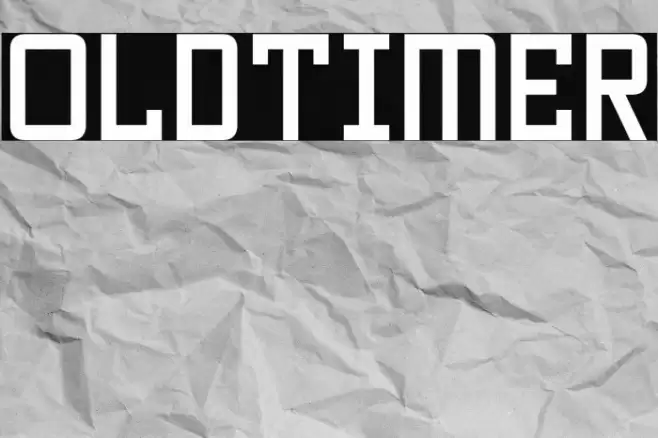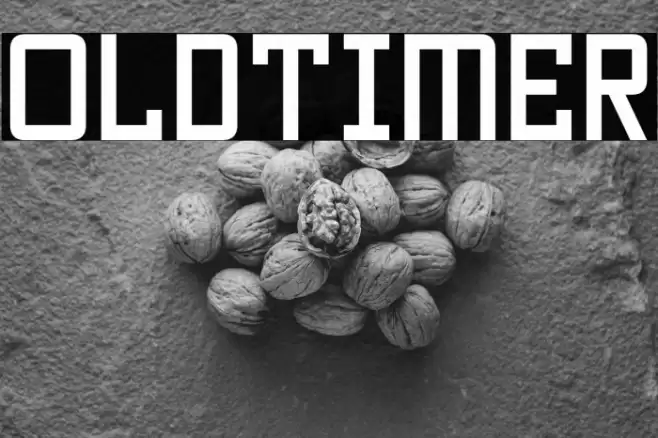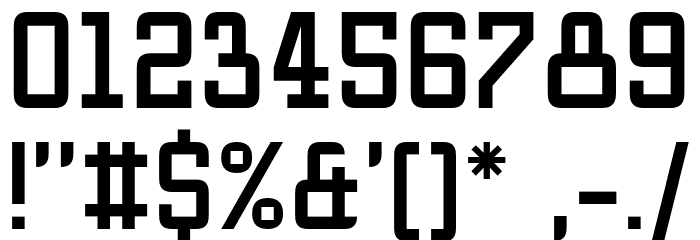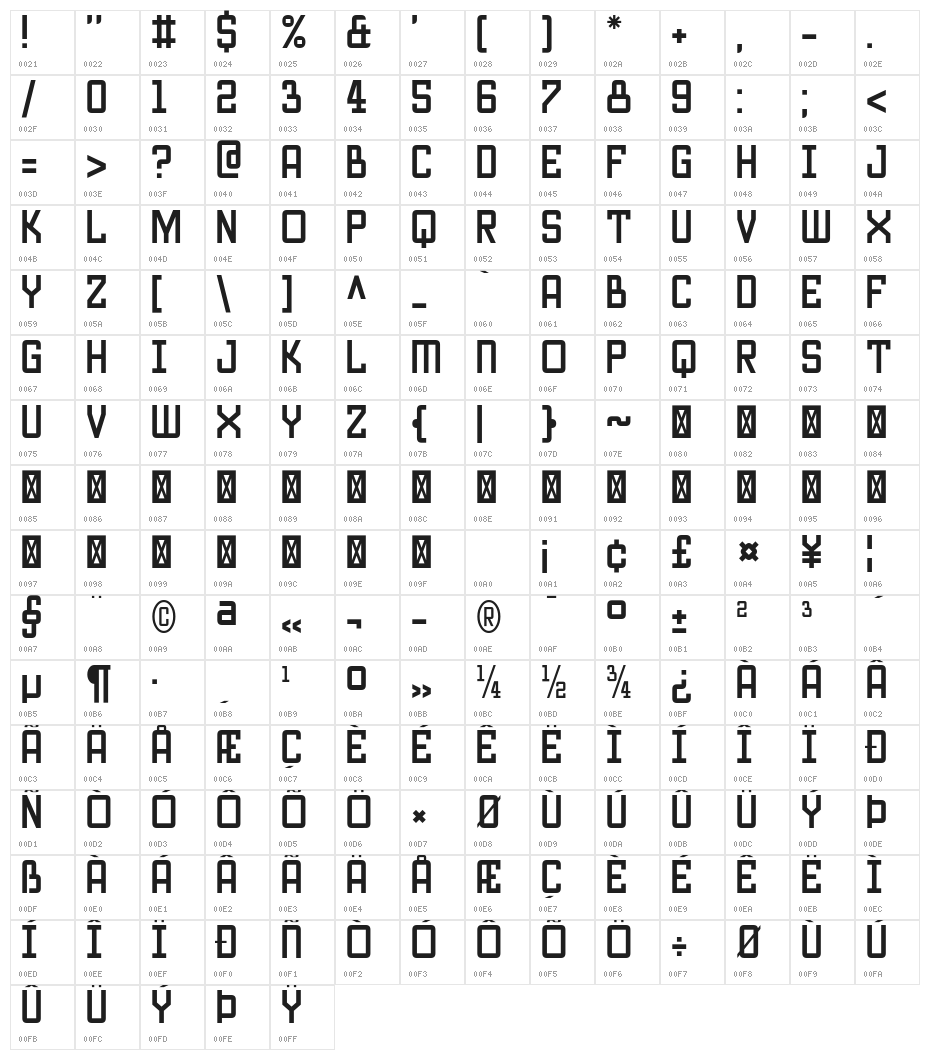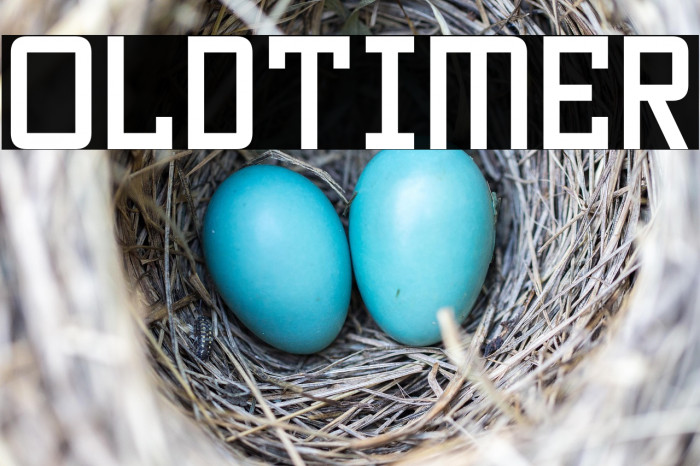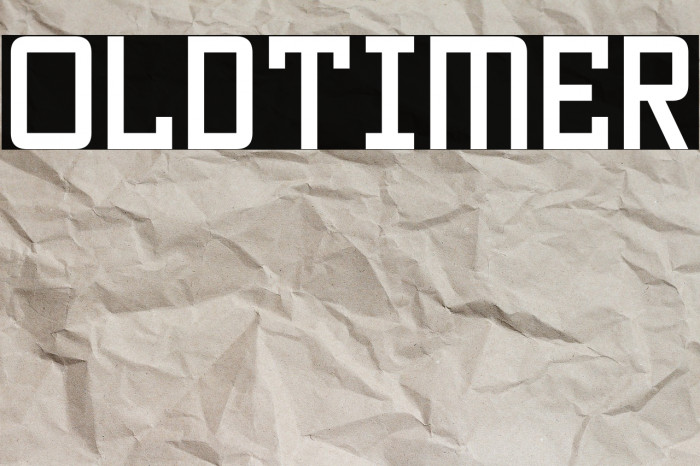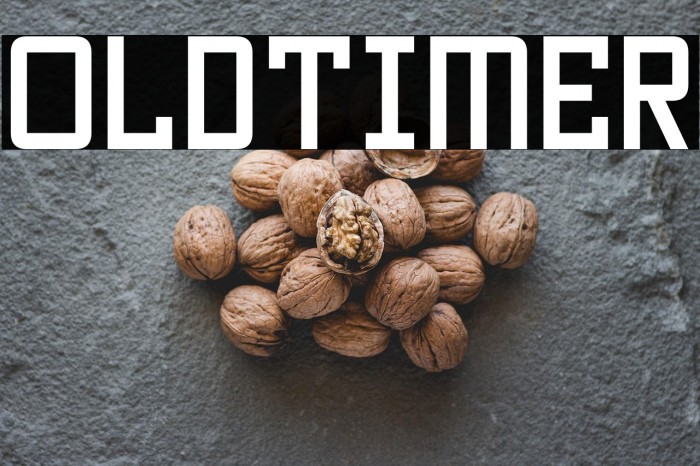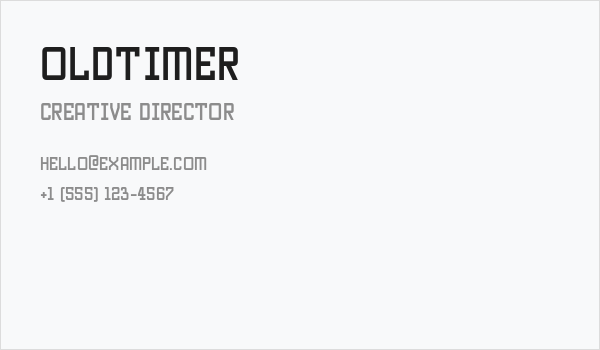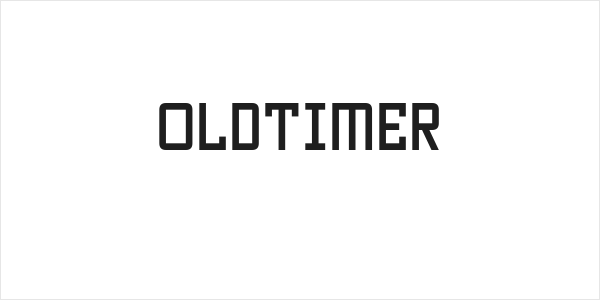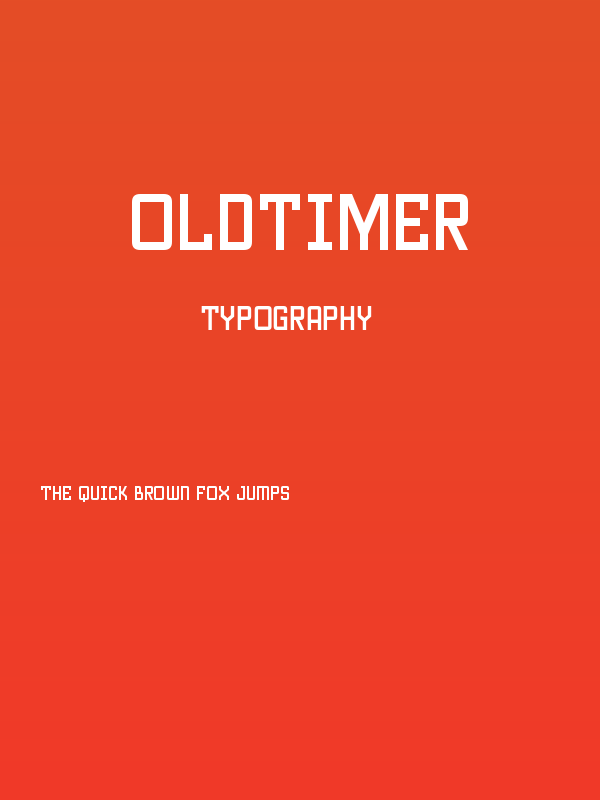
Oldtimer Font
Oldtimer Description
This font features a bold, geometric design with a modern and industrial feel. The characters are constructed with straight lines and sharp angles, giving it a mechanical and structured appearance. The uppercase and lowercase letters maintain a consistent height, contributing to a uniform look. The numerals are similarly styled, ensuring a cohesive aesthetic across all characters. The special characters are designed to match the overall geometric theme, making this font ideal for projects that require a strong, impactful visual presence.
- Proposed Projects: Ideal for branding, signage, posters, and any project requiring a strong, modern aesthetic.